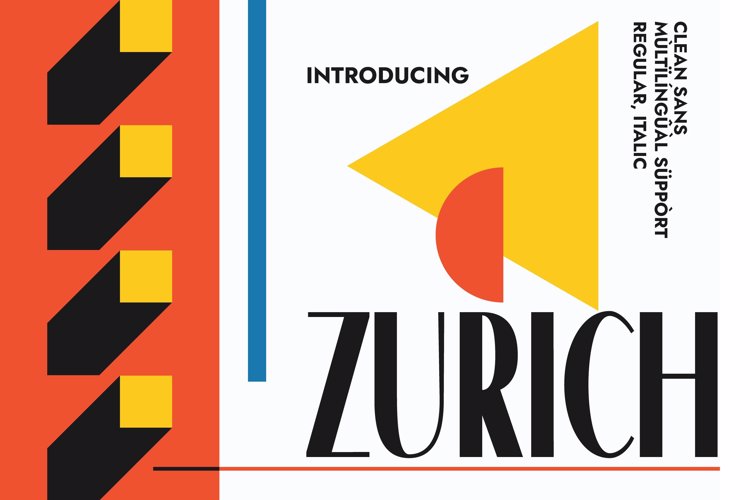
Zurich Font
🎨 Font Name: Zurich by Minimalist Art Studio
🎨 Font Description: Zurich is a clean, geometric sans with multilingual finesse and modern versatility—perfect for bold layouts and sharp branding.
✔ Complete Latin set + multilingual diacritics
✔ Alternates, stylistic sets & ligatures
✔ Numbers, small caps, and extended punctuation
✔ Bonus italics and family styles